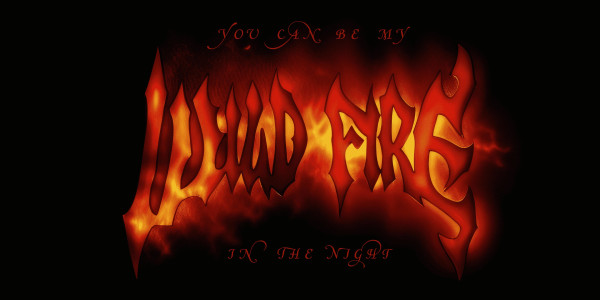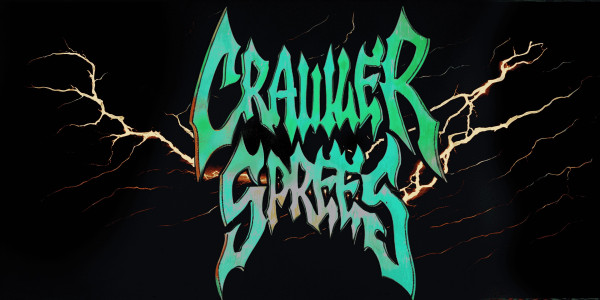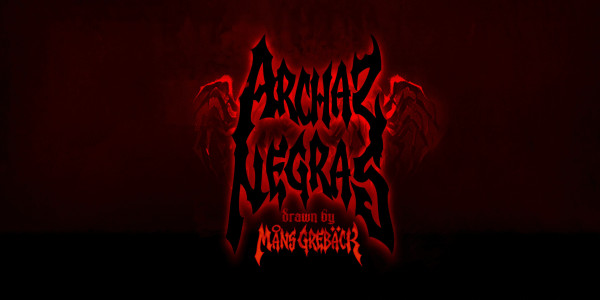
Archaz Negras Font
Archaz Negras Font channels the raw energy of death metal and an eerie aura of horror. Designed with precision by Mans Greback, this tough font resonates with the rebellious spirit of rock and its haunting allure of the unknown.
Write % after any word to make it symmetric.
Example: Metal%
Use { } [ ] around any word to give it wings.
Use characters ¶ ¦ ‡ ¤ × ÷ ≠ ± to make symbols like dragons, bats, spiders.